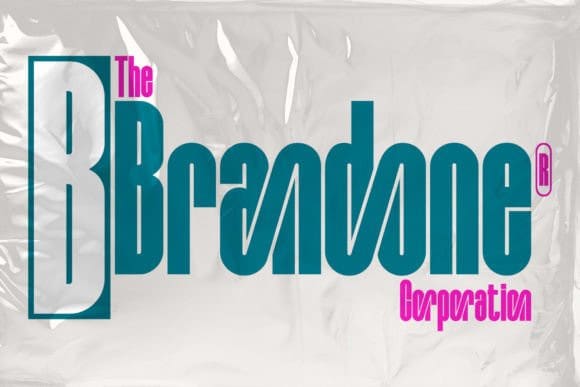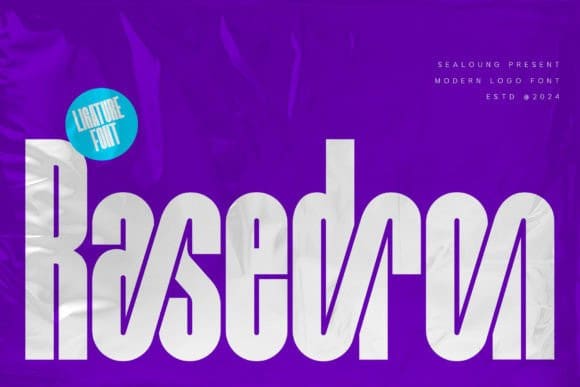
Rasedron Font
Rasedron Font, a sleek and contemporary sans serif font designed for creating striking logos and visual identities. The font features unique ligatures that add a touch of sophistication and creativity to your designs, making it perfect for brands that want to stand out with a modern and minimalistic approach. Whether you’re designing for digital platforms or print, Rasedron offers versatility and clarity, ensuring that your message is conveyed with style and precision. Ideal for logos, headlines, and branding projects, this font is a must-have tool for any designer looking to make a bold statement.